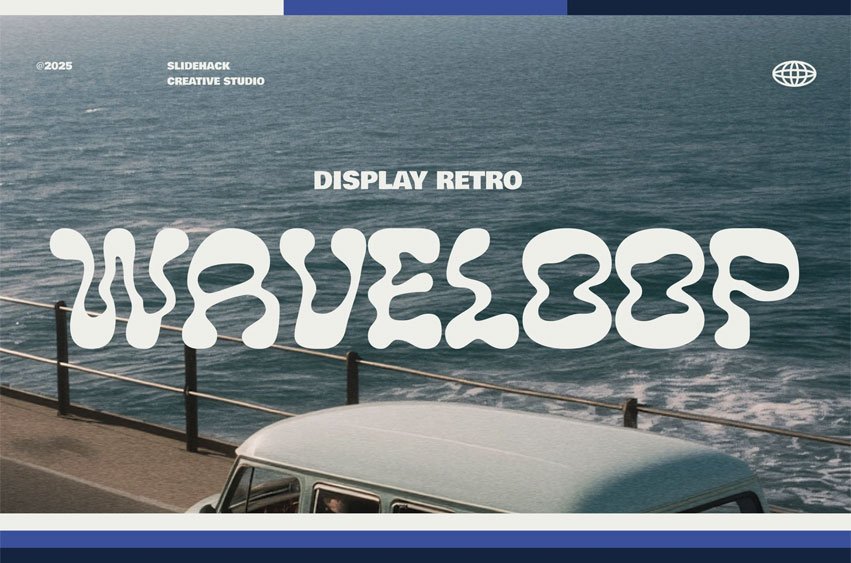
Waveloop Font Make your designs stand out with Waveloop, a bold and fluid display font inspired by ocean waves. Perfect for posters, music covers, branding, and creative projects.
Waveloop brings playful movement and retro vibes to any layout, unique, stylish, and ready to make a splash in your next design.